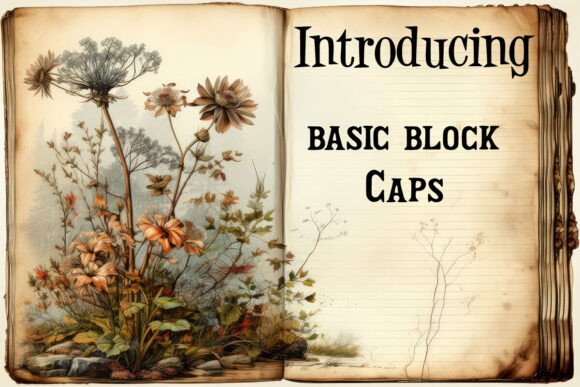
Introduction to Basic Block Caps Font
Introducing Basic Block Caps Font, a flawless amalgamation of versatility and style.
Step up your game with this superior choice, perfect for jazzing up your advertising campaigns, giving your headings a standout appeal, transforming blogs into bewitching readersโ realms, designing logos with visually captivating elements, and crafting a distinct brand identity Unleash the power of typeface and enjoy endless possibilities with Basic Block Caps Font.
Key Features of Basic Block Caps Font
Why Choose Basic Block Caps Font?
Basic Block Caps Font offers exceptional quality and versatility, making it a valuable addition to your design toolkit. Whether you’re creating for personal projects or commercial use, Basic Block Caps Font delivers professional results.